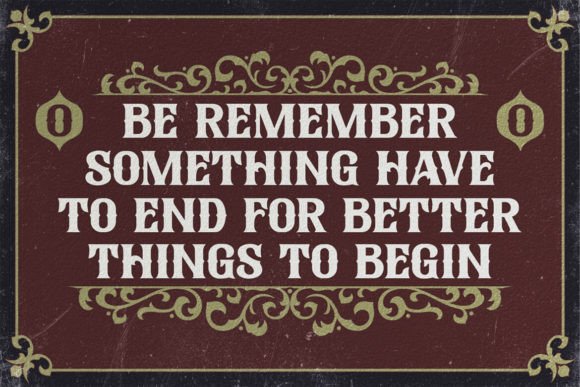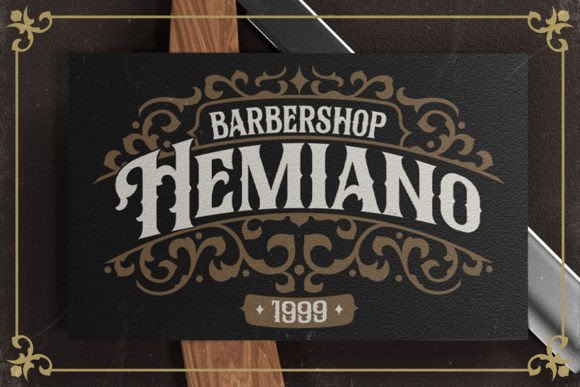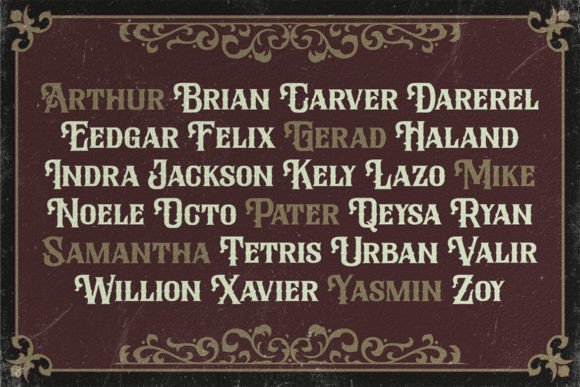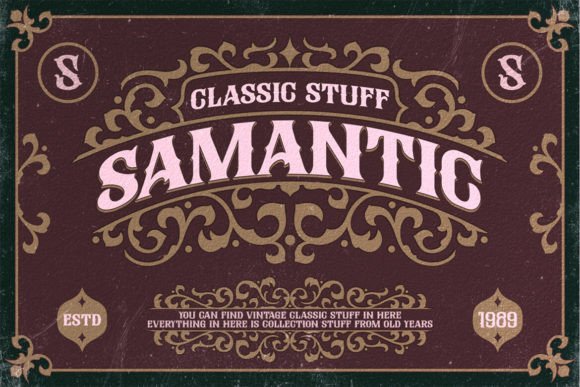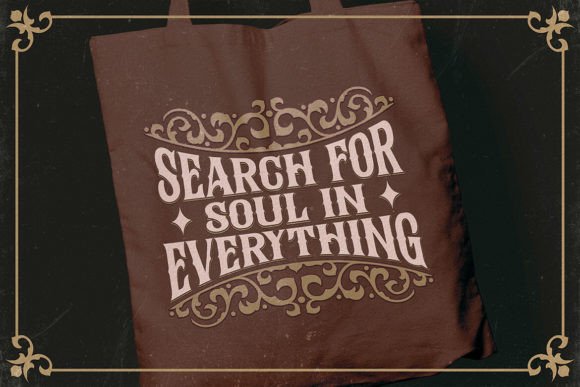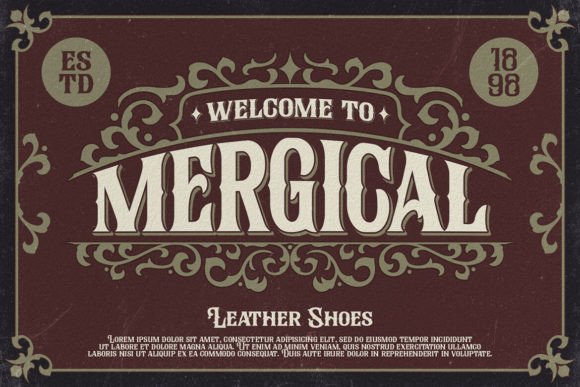
Alemoric Font: Elevate Your Design with a Vintage Twist
In the realm of typography, fonts play a pivotal role in defining the aesthetic and tone of a design project. For those seeking to infuse their creations with an old-rustic charm, the Alemoric Font emerges as an exceptional choice. This vintage typeface font is meticulously crafted to add a touch of nostalgia and character to any design, making it perfect for projects that call for a vintage, retro, wild, or organic style.
The Essence of Alemoric Font
Alemoric is not just a font; it’s a design statement. Its vintage appeal is reminiscent of the bygone eras, evoking feelings of warmth and authenticity. This collection of fonts is versatile, designed to cater to a wide array of design needs. Whether you’re working on a product logo, such as for a pomade, coffee, or barber shop, or crafting packaging labels, Alemoric Font is the ideal companion. Its rustic charm and classic appeal make it a valuable asset for branding, logo designs, lettering, logotype, craft projects, posters, and more.
Key Features of Alemoric Font
- Vintage Appeal: Alemoric boasts a unique vintage aesthetic that instantly adds character to your designs.
- Versatility: Suitable for a myriad of design projects, from logos and branding to posters and packaging.
- Rustic Charm: Perfect for adding an old-rustic charm that sets your design apart.
- Easy to Use: Designed to be user-friendly, making it accessible for designers of all skill levels.
Applications of Alemoric Font
The Alemoric Font’s versatility is one of its most compelling attributes. Here are some of the areas where it truly shines:
- Logo Design: Create memorable logos for businesses like pomade, coffee shops, or barber shops with a distinct vintage flair.
- Branding: Enhance your brand’s identity with a font that exudes warmth and nostalgia.
- Lettering and Logotype: Add a personal touch to your lettering and logotype designs with Alemoric’s unique charm.
- Craft and DIY Projects: Perfect for crafters and DIY enthusiasts looking to add a vintage touch to their creations.
- Posters and Advertising: Stand out with posters and advertisements that feature a distinctive, eye-catching typeface.
Why Choose Alemoric Font?
In a world where design trends are constantly evolving, standing out is crucial. The Alemoric Font offers a unique blend of vintage charm and versatility, making it an excellent choice for designers and crafters alike. Its ability to evoke a sense of nostalgia and authenticity can be a game-changer for projects aiming to connect with audiences on a more personal level.
Tips for Using Alemoric Font Effectively
- Pair with Modern Fonts: Combine Alemoric with modern fonts for a striking contrast.
- Experiment with Colors: Play with earthy tones to enhance its rustic appeal.
- Consider Size and Weight: Experiment with different sizes and weights to find the perfect balance for your design.
Alemoric Font is more than just a typeface; it’s a design tool that can transform your projects with its vintage charm. Whether you’re a professional designer or a crafting enthusiast, Alemoric offers the perfect blend of nostalgia and versatility. By incorporating Alemoric into your design repertoire, you’re not just choosing a font; you’re embracing a style that connects with the heart. Elevate your designs with the timeless appeal of Alemoric Font and watch your creations tell a story that resonates with your audience.